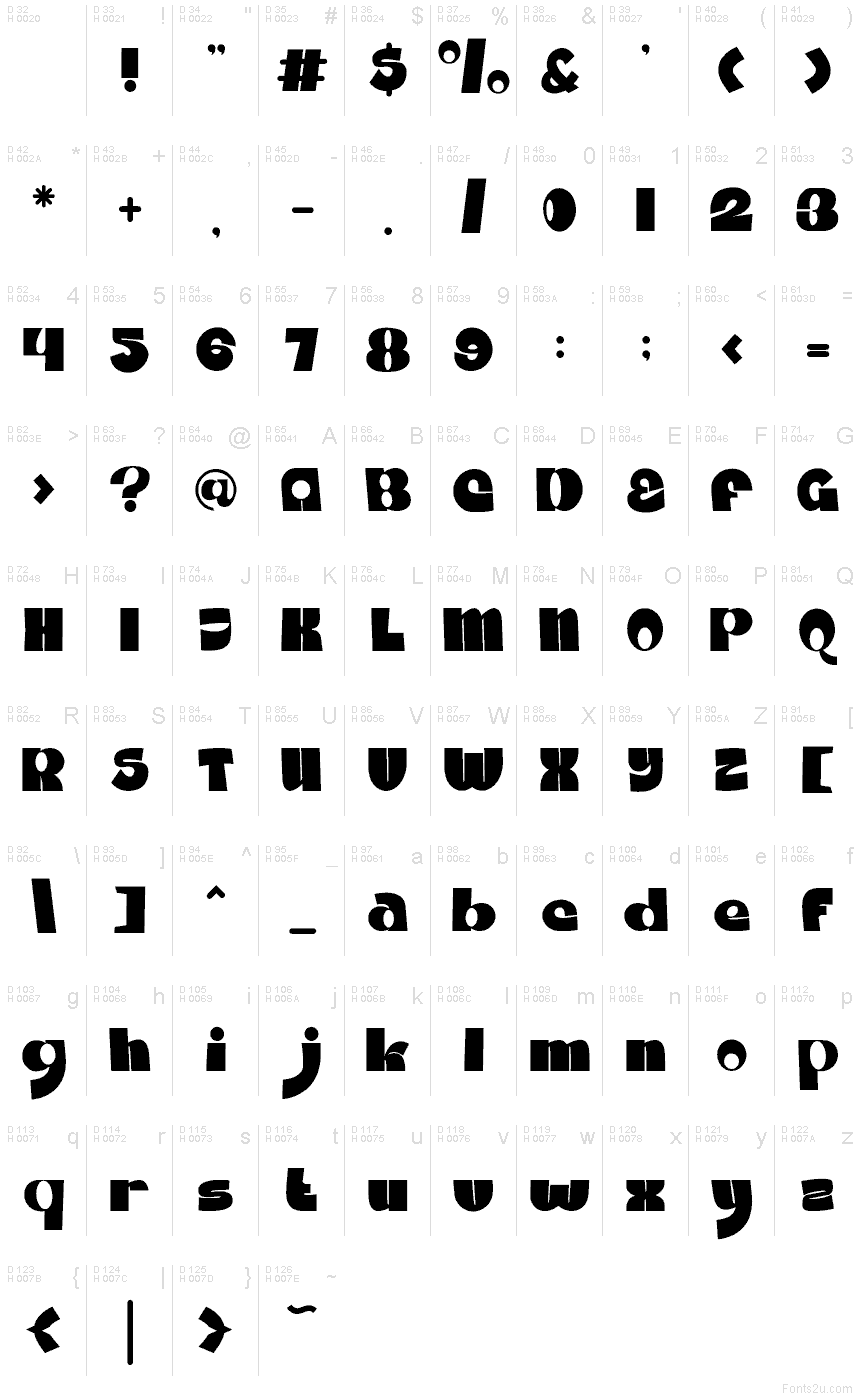
Round Block
Round Block font by PutraCetol Studio is a free display font that embodies boldness through its groovy style, expanded width, and impactful appearance. With a strong presence inspired by rounded geometric shapes and retro influences, it carries a modern aesthetic that satisfies every project looking for an exceptional touch within its text.